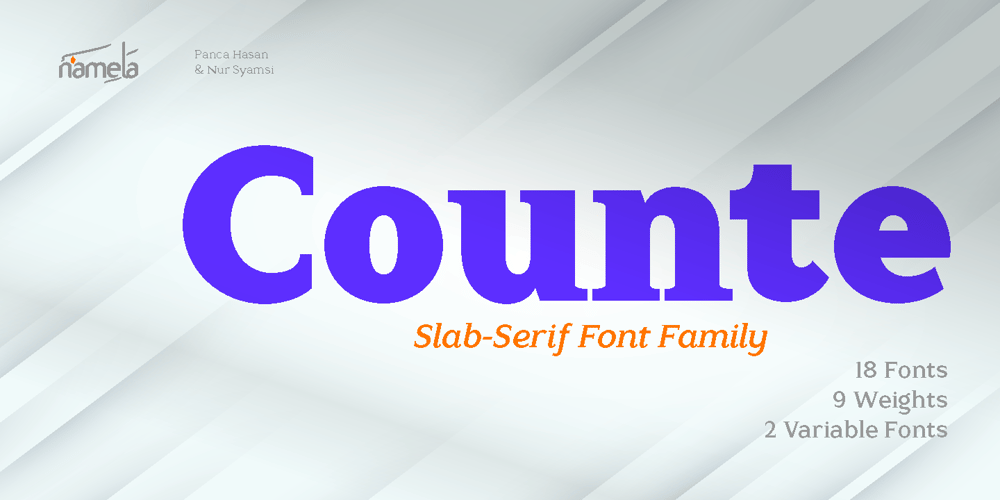
Counte Font Family was designed by Nur Syamsi, Panca Ahmadi Hasan and published by NamelaType. Counte contains 20 styles and family package options. This is our first experience of creating serif fonts. It resulted in a modern slab serif family designed with symmetrical bracketed serifs for uprights and cursive serifs for Italics. Crafted with low contrast strokes, it makes this font versatile and can be used for text and printing.Counte contains many International diacritics and OpenType Features. It consists of 9 weight, going from Thin to Black with matching italics.